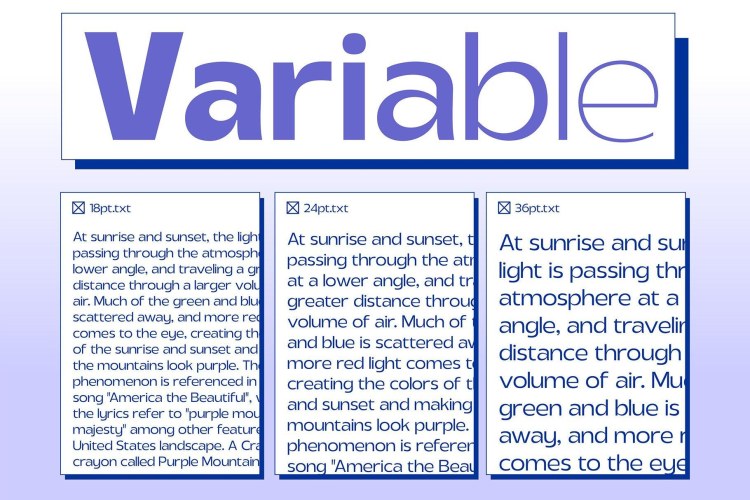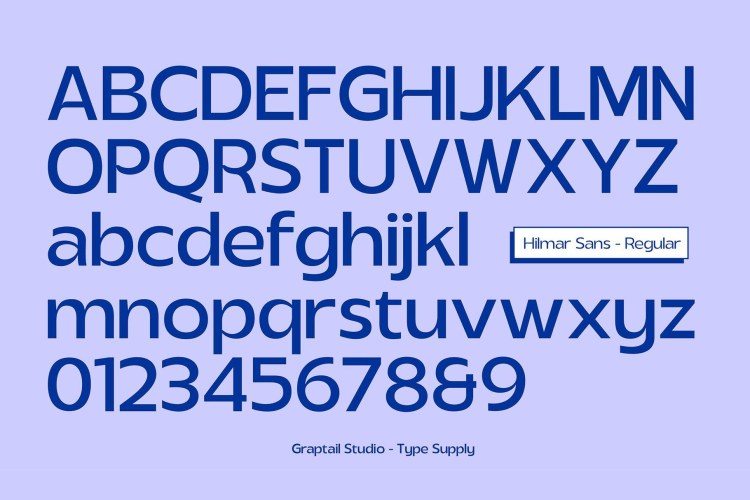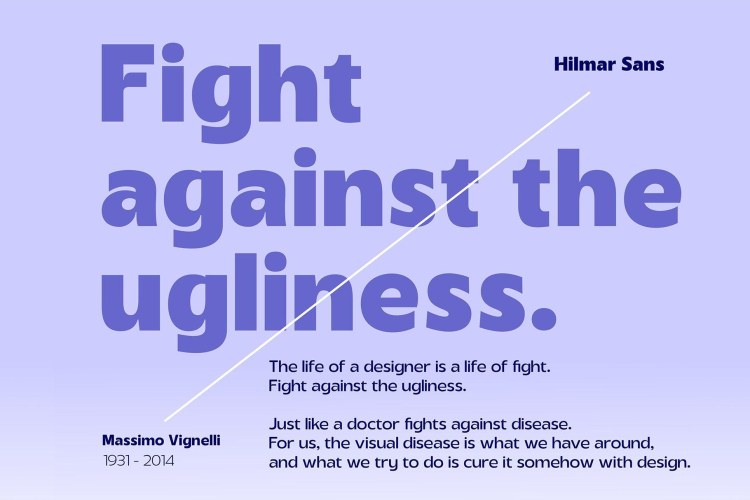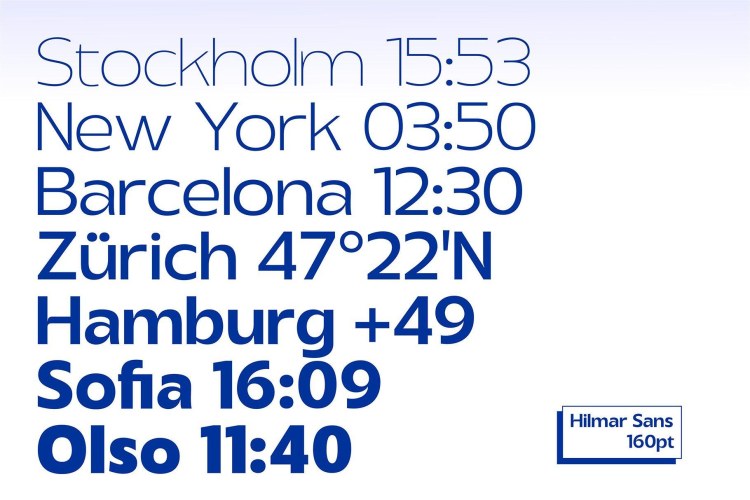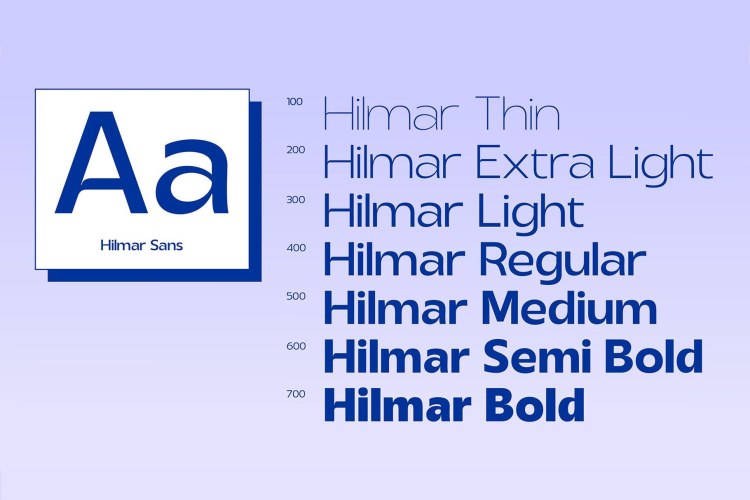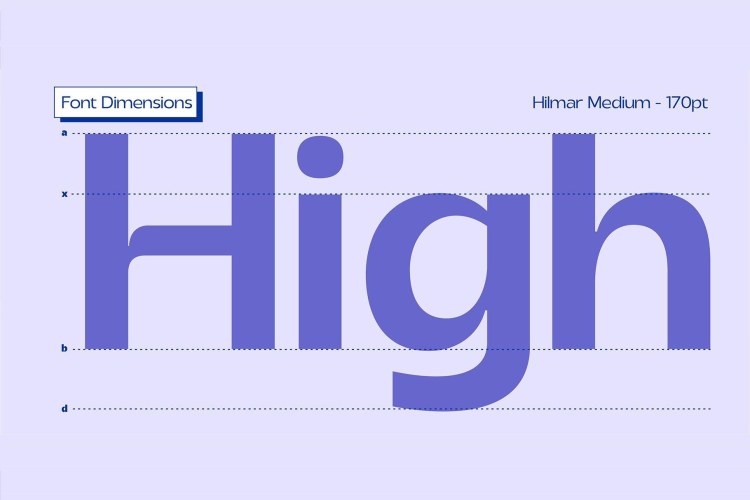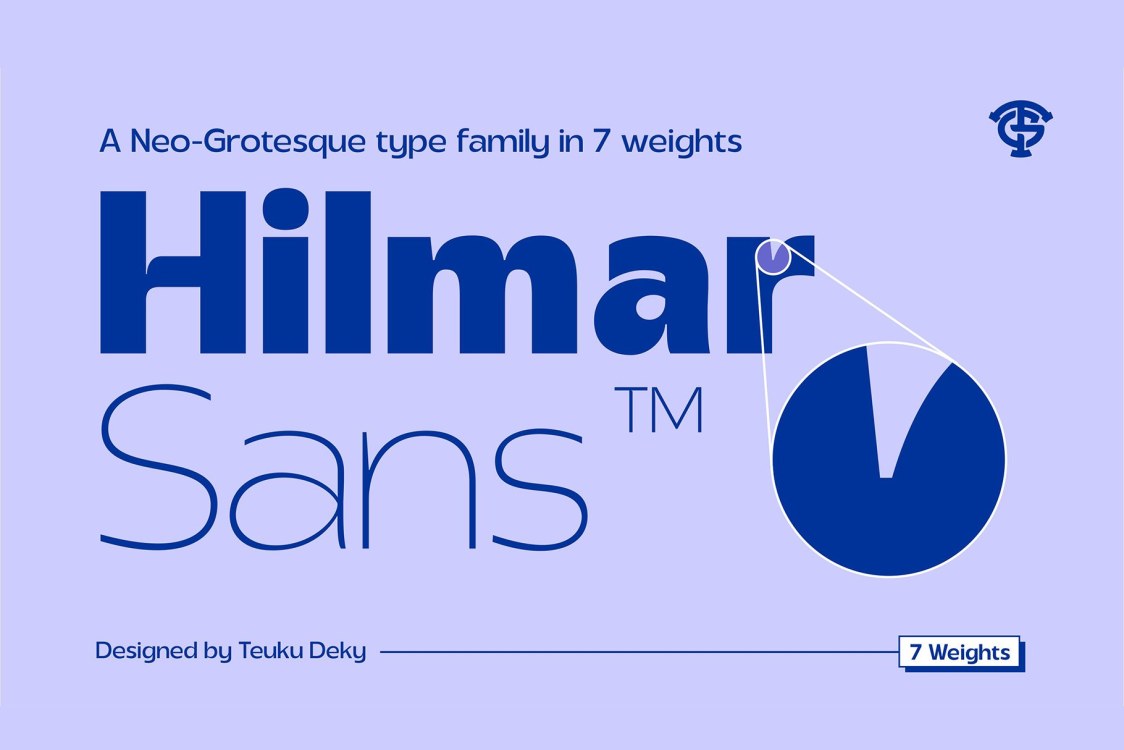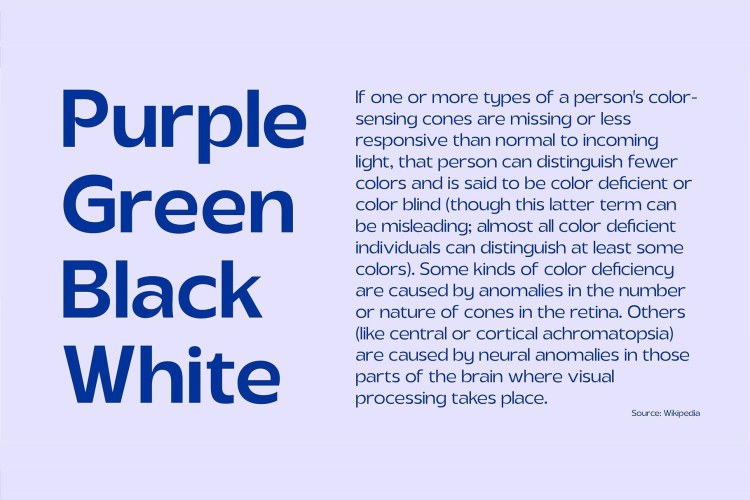
Hilmar Sans Font Family
Hilmar Sans is a neo-grotrsque typeface family in 7 weights, support most European Languages and features. The typeface is versatile to blend in your design- with 7 weight, ranging from thin, extra light, light, regular, medium, semi bold, bold variable type. Perfect anywhere you need a right finas touches for branding, publishing, titles, book, magazine , and use on UI/UX design.The typeface is versatile to blend in your design- with 7 weight, ranging from thin, extra light, light, regular, medium, semi bold, bold variable type. Perfect anywhere you need a right finas touches for branding, publishing, titles, book, magazine , and use on UI/UX design
Where Hilmar Sans Font Family works best
Hilmar Sans Font Family stays legible at small sizes, which makes it a strong choice for navigation, buttons and dashboards in web design and app interfaces.
Clean sans serifs like Hilmar Sans Font Family are the default language of SaaS, fintech and product branding.
What is Hilmar Sans Font Family good for?
Hilmar Sans Font Family is a Sans Serif Fonts typeface tagged Bold, Branding, Editorial, Sans Serif. It works well for headlines, logos, posters, social media graphics and branding projects that need a distinctive sans serif fonts look.